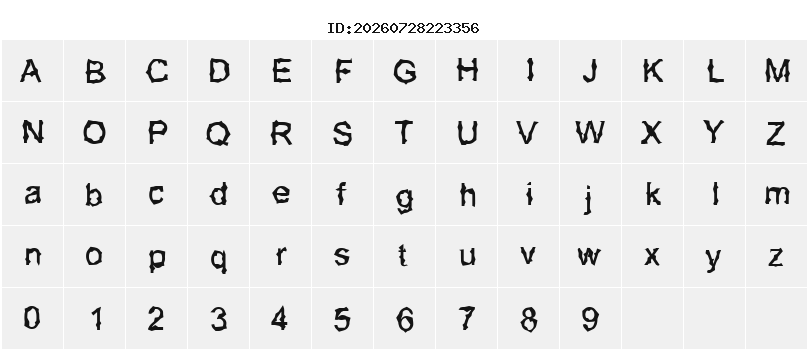
Mermaid Shards Preview
• Font Name: Mermaid Shards
• Full Font Name: Mermaid Shards
About Mermaid Shards.ttf
Mermaid Shards.ttf is a modern, elegant sans-serif font designed for ultimate readability and visual harmony. Perfect for branding, headlines, web design, and print materials.